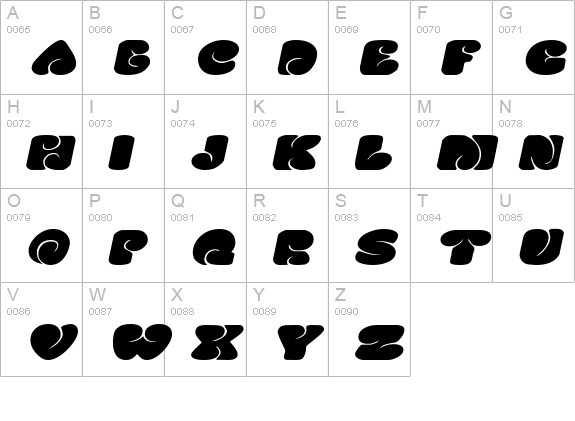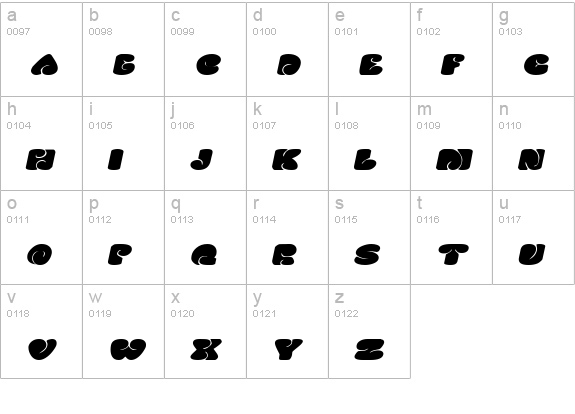
SixtiesVibeExtended Oblique Font Details
SixtiesVibeExtended Oblique is a distinctive, italic variant in the SixtiesVibeExtended typeface family \xE2\x80\x94 well suited to design and typography projects.
SixtiesVibeExtended Oblique font is a bold and dynamic typeface that embodies the spirit of the 1960s. Its unique and playful design captures the essence of the era, exuding a sense of freedom and creativity. With its slanted and elongated letterforms, this font is perfect for adding a retro and groovy touch to your designs. The SixtiesVibeExtended Oblique font is freely available to download at FontsMarket.com. Whether you're designing a vintage-inspired poster, album cover, or logo, this font will transport your audience back to the iconic era of the sixties. Its bold and exaggerated letterforms will make a statement and add a touch of nostalgia to any project. This font is not only visually striking, but also highly versatile. Its oblique angles and elongated forms create a sense of movement and energy, making it perfect for capturing the spirit of the swinging sixties. Whether you're going for a psychedelic vibe or a retro feel, SixtiesVibeExtended Oblique font will bring your designs to life. With its wide range of characters and ligatures, this font offers endless possibilities for experimentation and creative expression. From headlines to body text, the SixtiesVibeExtended Oblique font can be used in various design contexts, adding a touch of vintage charm to any project. So why wait? Embrace the retro vibes and download SixtiesVibeExtended Oblique font for free at FontsMarket.com today. Let this font transport you and your audience back to the groovy era of the sixties, unleashing your creativity and adding a touch of nostalgia to your designs.